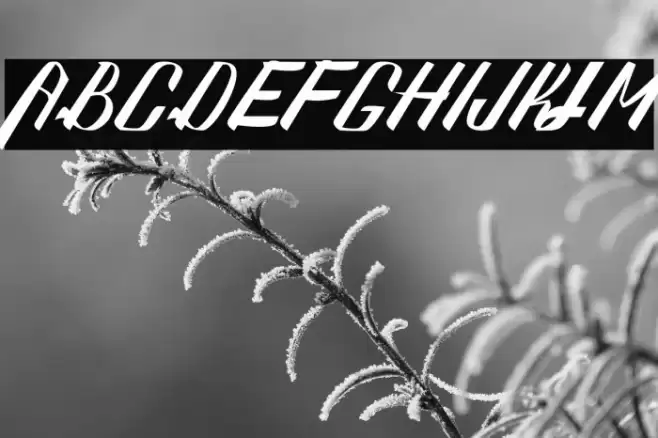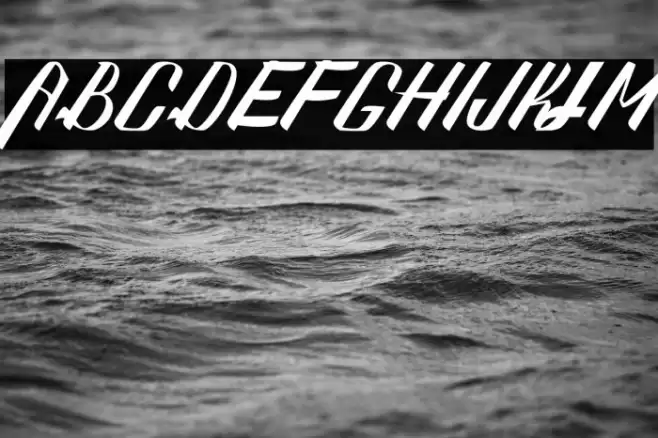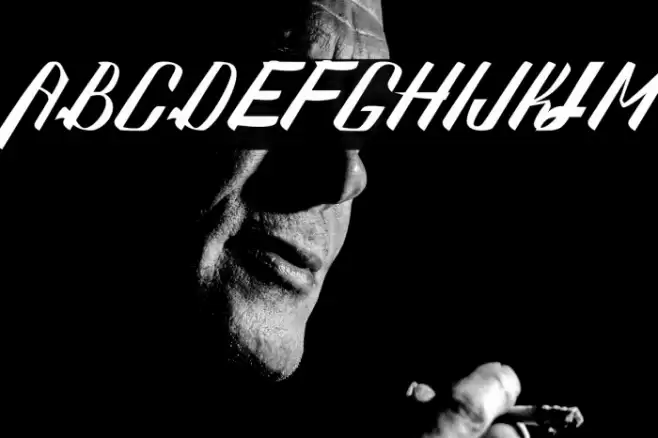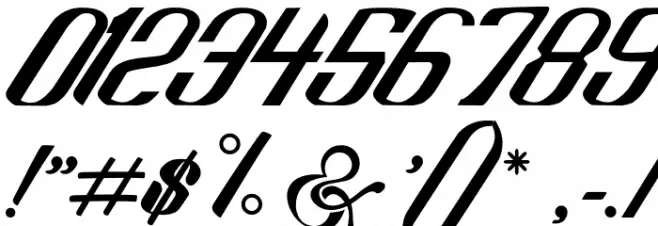
SexyShout Font
SexyShout Description
This font features a bold and dynamic script style with a strong slant, giving it a sense of motion and energy. The characters are connected in a fluid manner, reminiscent of handwriting, yet maintain a structured and uniform appearance. The uppercase letters are tall and commanding, while the lowercase letters are slightly more compact, creating a harmonious balance. The numbers and special characters follow the same stylistic cues, ensuring consistency across all glyphs. The font's thick strokes and high contrast between thick and thin lines enhance its legibility and impact, making it suitable for attention-grabbing designs.
A bold, slanted script font with high contrast and fluid connections from Uncategorized fonts.
- Font: SexyShout
- Proposed Projects: Ideal for branding, logos, posters, and any design requiring a bold, dynamic script.
- Character Spacing: Tight